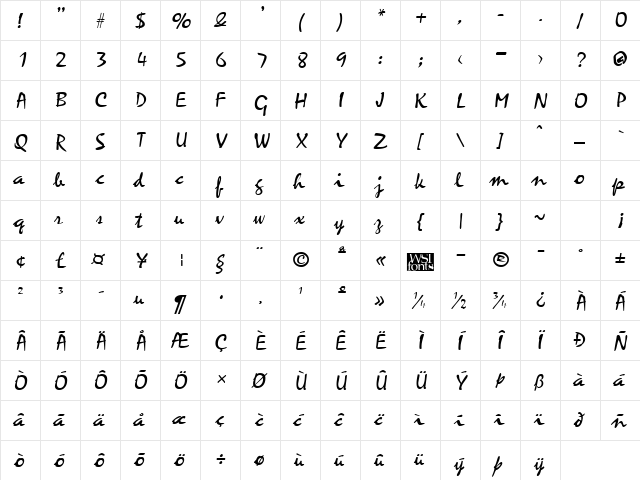
Minstrel Bold
Design Context for Minstrel Typeface
Minstrel is a composed and adaptable typeface that performs quietly and consistently across a wide range of design contexts. The heavy weight commands attention and anchors typographic hierarchies.